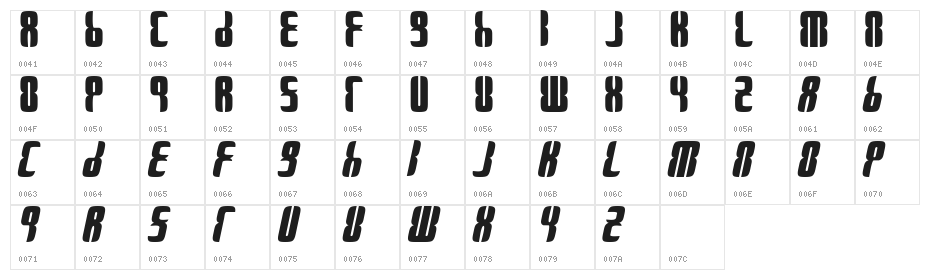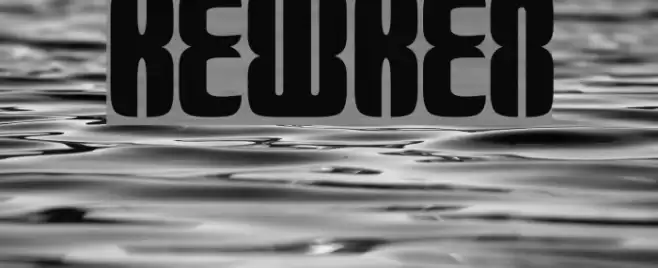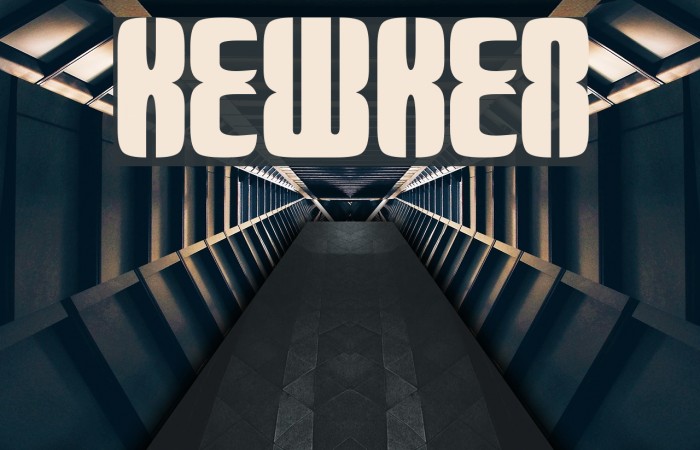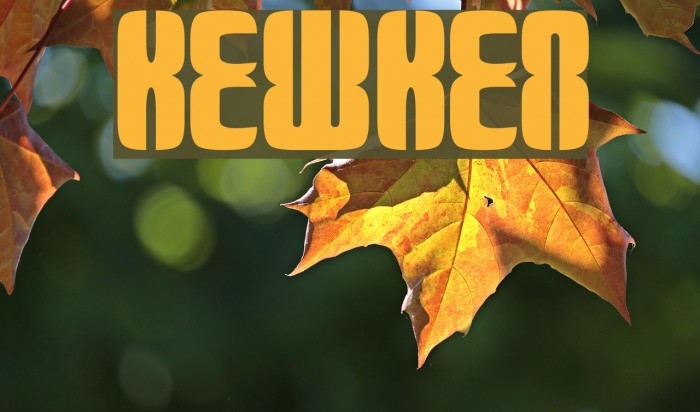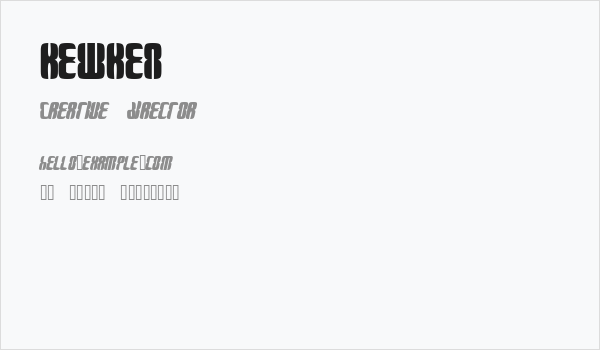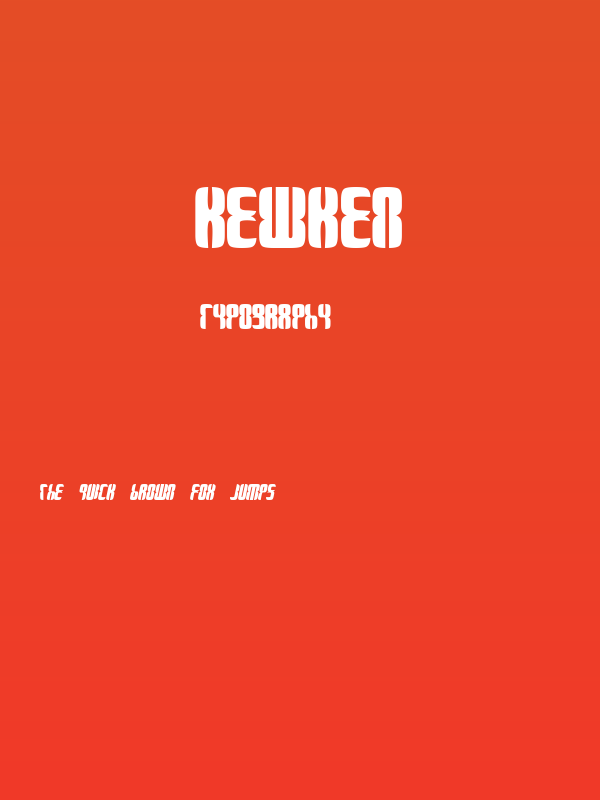
KEWKEN Font
KEWKEN Description
This font features a bold and modern design with a unique geometric style. The characters are constructed with thick, rounded strokes that create a strong visual impact. The uppercase letters are particularly striking, with a consistent width that gives the font a cohesive appearance. The lowercase letters maintain the same boldness, ensuring readability while adding a touch of playfulness. The numbers are equally bold, matching the overall aesthetic of the font. This font lacks traditional serifs, emphasizing its modern and contemporary feel. The absence of special characters suggests a focus on simplicity and clarity.
| Proposed Projects | Ideal for branding, posters, and headlines where a strong visual impact is desired. |